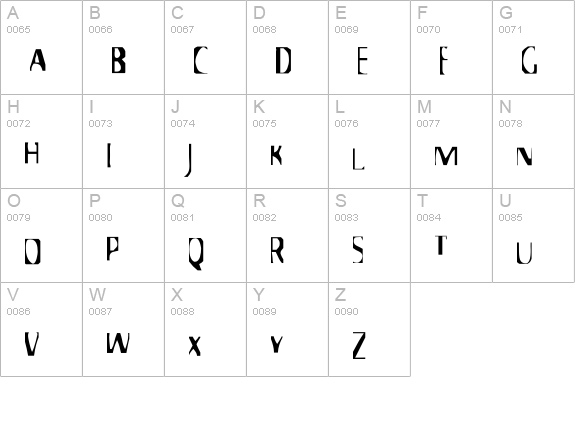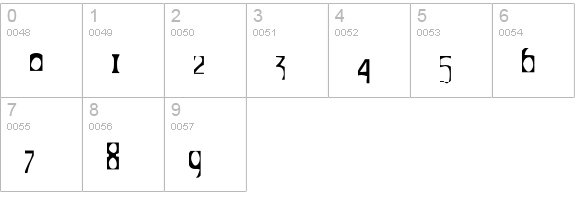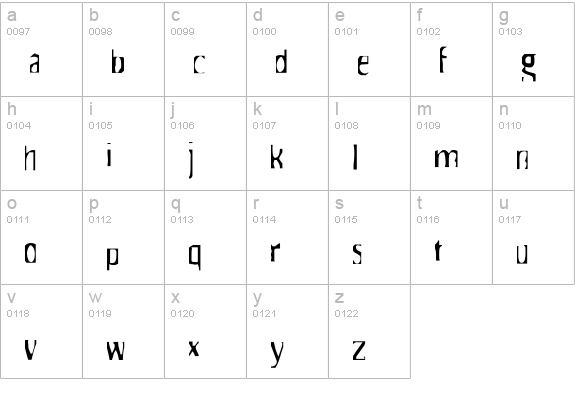
HateNoteSlanderous Font Details
Introducing HateNoteSlanderous, a bold and striking font that will leave a lasting impression. Designed to convey a sense of power and intensity, this font is perfect for adding a touch of drama to your design projects. HateNoteSlanderous features sharp, angular letterforms that exude a sense of defiance and rebellion. Each character is meticulously crafted to create a visual impact, making it ideal for headlines, logos, posters, and more. Whether you're aiming for a bold statement or a daring aesthetic, this font delivers with its unique and edgy style. But what sets HateNoteSlanderous apart is not just its captivating design, but also its availability as a free font. That's right, you can download HateNoteSlanderous for free at FontsMarket.com. This means that you can unleash your creativity and make a bold statement without breaking the bank. With HateNoteSlanderous, you have the freedom to experiment and explore different design possibilities. Its versatility allows it to be used in a wide range of projects, from branding and advertising to social media graphics and website designs. The possibilities are endless, and with this font, you can truly make a statement that demands attention. So why wait? Download HateNoteSlanderous now from FontsMarket.com and let your creativity soar. Whether you're a professional designer or a passionate hobbyist, this font will amplify your message and leave a lasting impression. Don't miss out on the opportunity to add a touch of boldness to your designs – get HateNoteSlanderous today and make a statement that cannot be ignored.